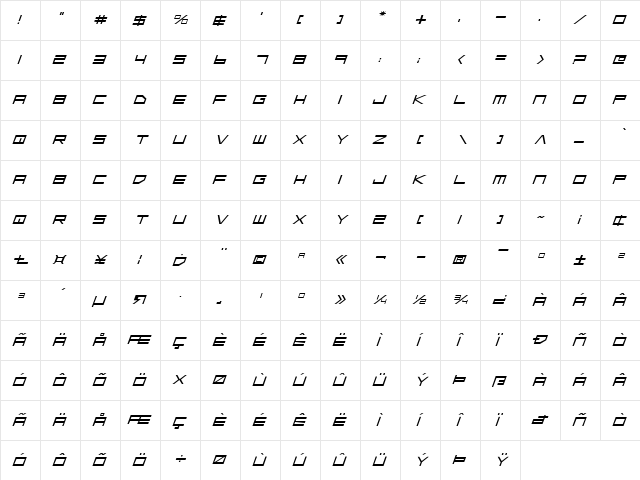
Low Gun Screen Expanded Italic Expanded Italic
Design Context for Low Gun Screen Expanded Italic Typeface
Low Gun Screen Expanded Italic is a composed and adaptable typeface that performs quietly and consistently across a wide range of design contexts. Its italic angle brings a sense of urgency and motion to the letterforms.